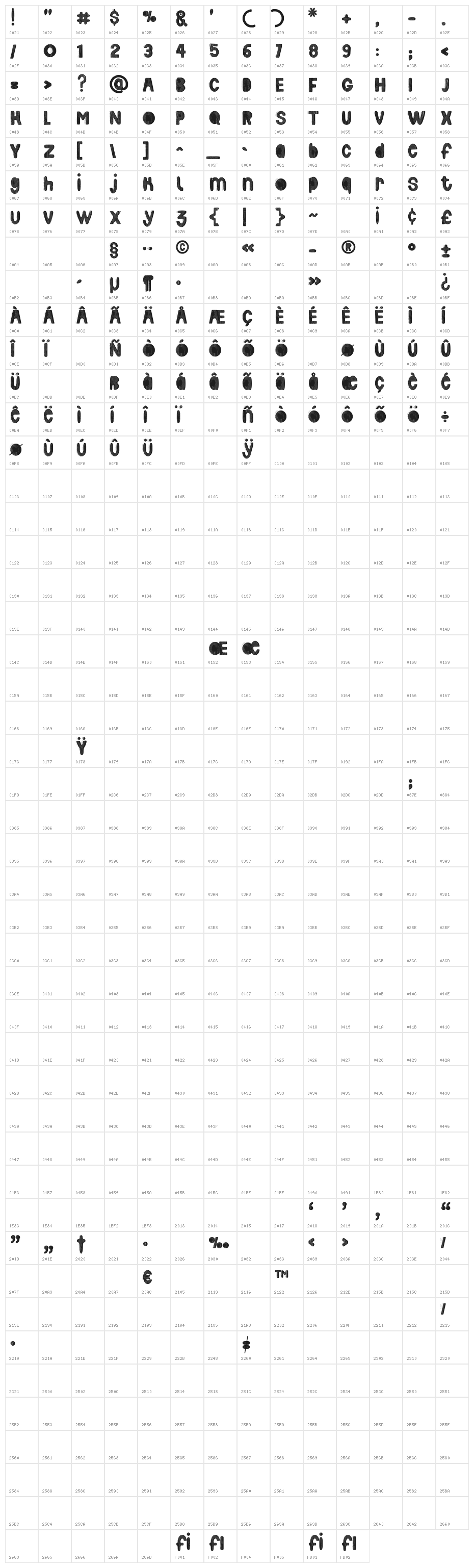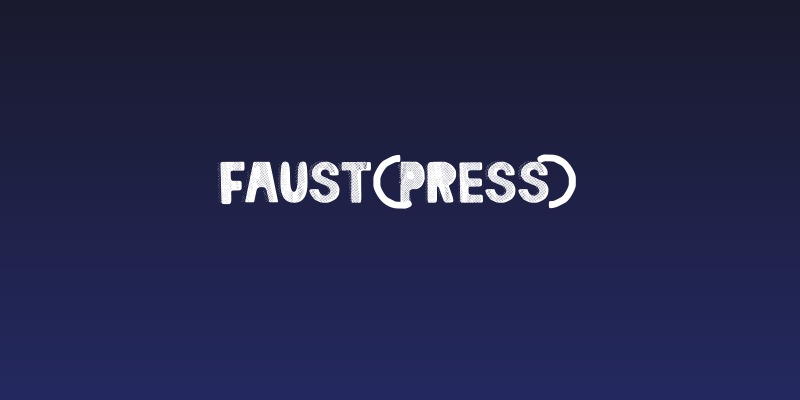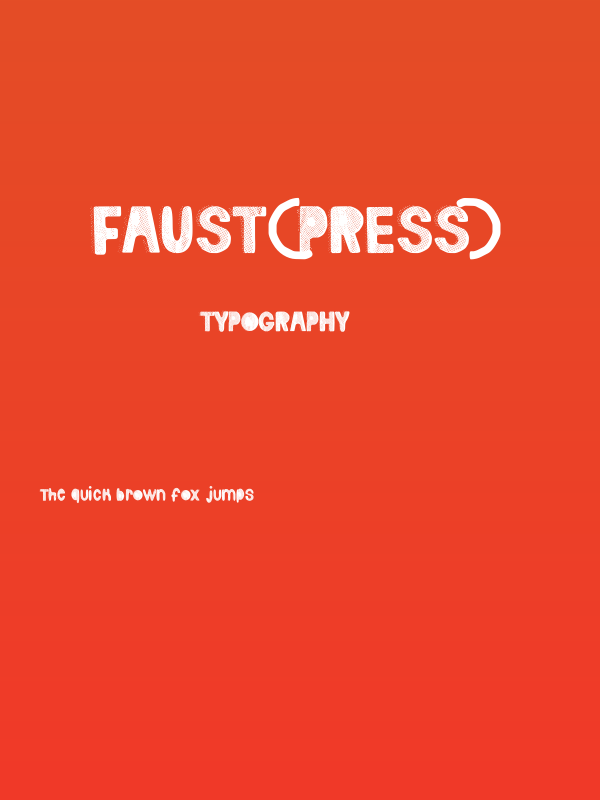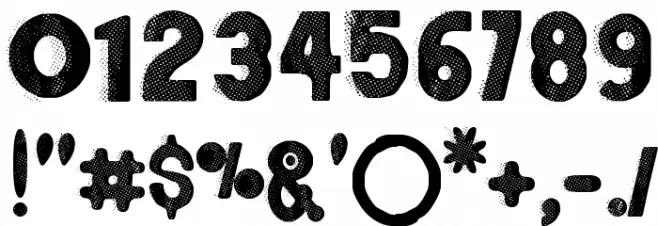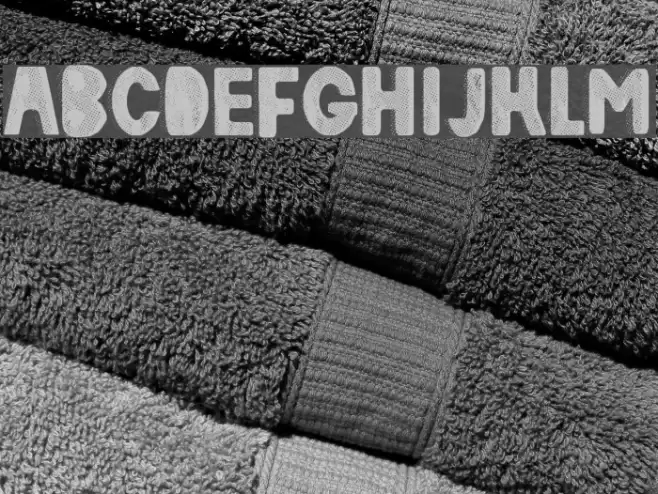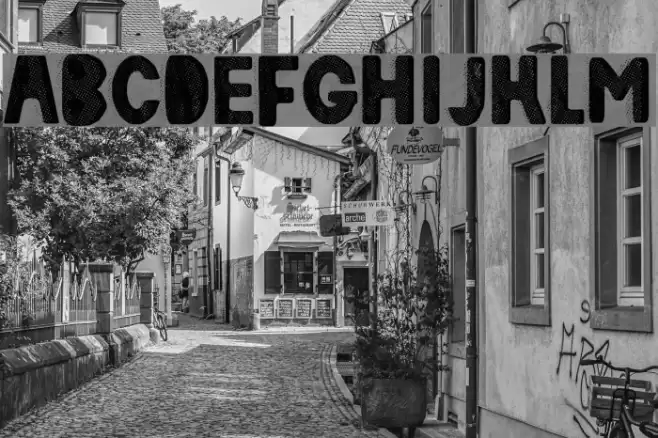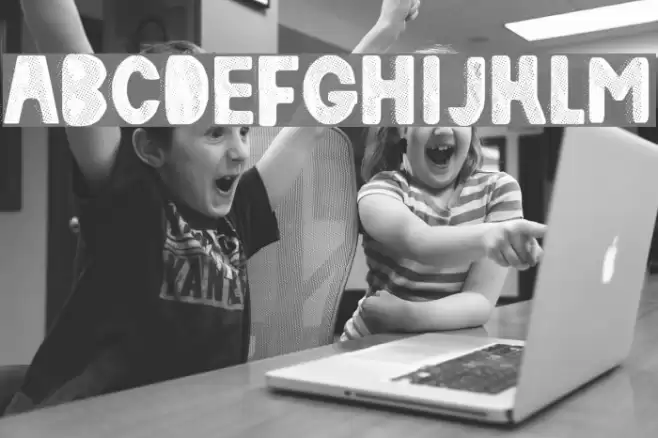
Faust(press) Font
Faust(press) Description
This font features a bold, playful style with a distinct dotted texture that gives it a unique, eye-catching appearance. The characters are rounded and slightly irregular, adding a whimsical and informal touch. The uppercase and lowercase letters maintain a consistent style, while the numbers and special characters complement the overall design. The font's dotted pattern creates a sense of depth and texture, making it suitable for creative and artistic projects. Its boldness ensures readability, while the playful design makes it ideal for fun and engaging visual content.
| Overall Style | Playful, Artistic |
| Use Case | Headlines, Posters, Creative Design |
| Proposed Projects | Ideal for children's books, playful branding, posters, and creative design projects. |